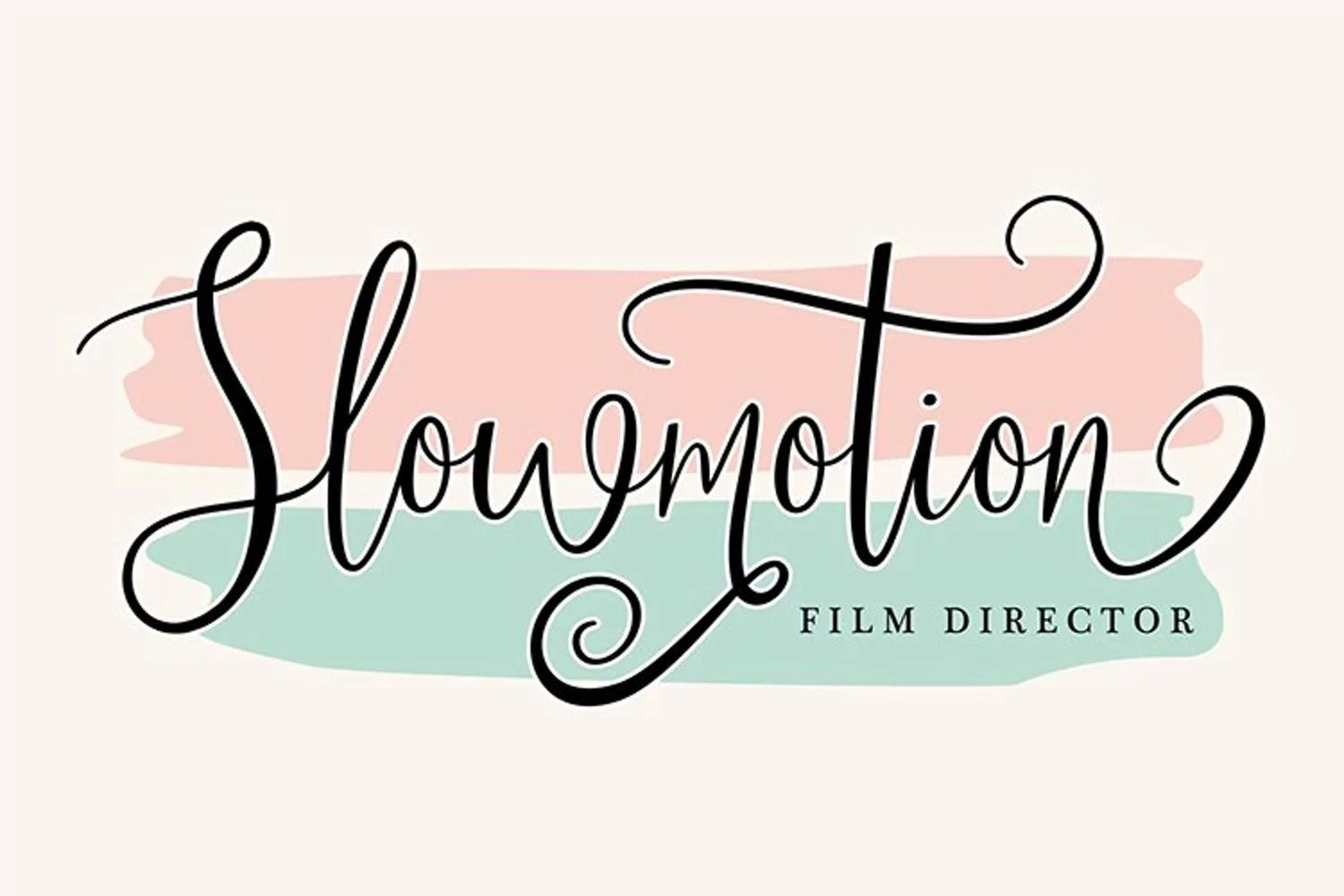
Fashionista - Beautiful Romantic Font
Fashionista font was made to be a good and beautiful font,curves and lines are so soft which makes this font look pretty.
Really befit to all your design project,like invitation card,product logo,food brand logo and much more.
Fashionista font also supported with extra character that include : standart ligatures, stylistic set 01 - stylistic set 03 and swash.
that will help you get beautiful style with your own creation.